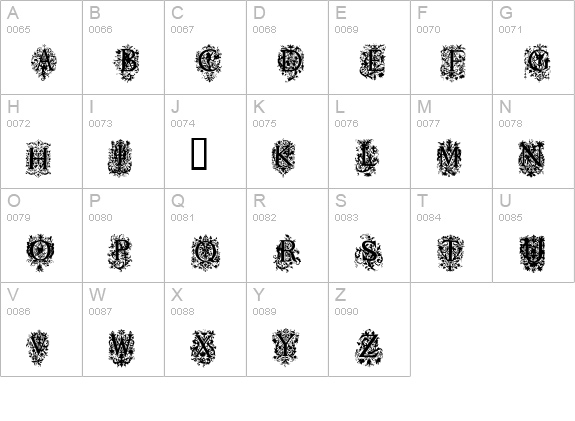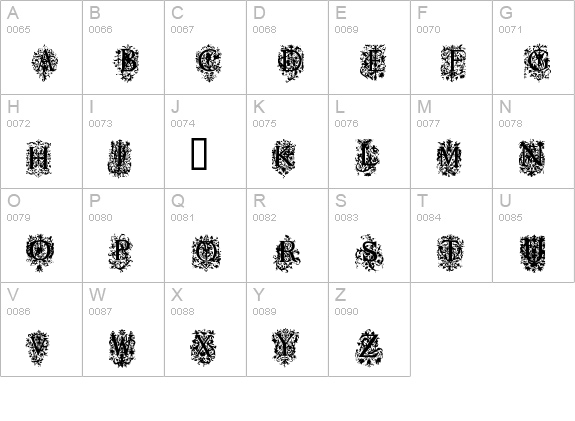
Chaucher Font Details
The Chaucher font is a timeless and elegant typeface that exudes sophistication and charm. Its classic and versatile design makes it suitable for a wide range of projects, from invitations to branding and everything in between. With its delicate serifs and graceful curves, Chaucher adds a touch of refinement to any text it graces. What sets Chaucher apart is not only its stunning aesthetics but also the fact that it is completely free to download. Yes, you heard that right - this exquisite font is available at no cost at FontsMarket.com. So go ahead and elevate your designs with the beauty of Chaucher font, without breaking the bank. Download it today and add a touch of class to your projects!